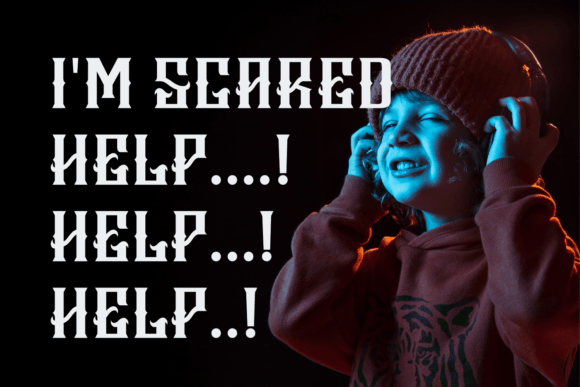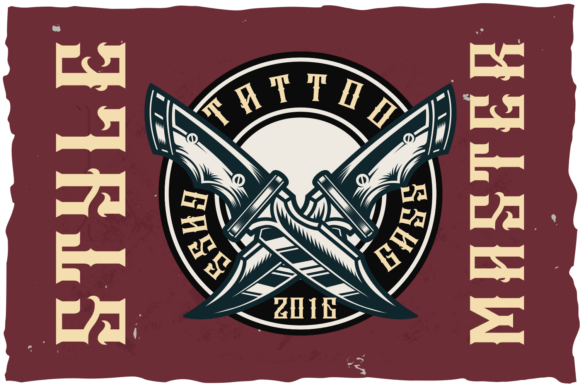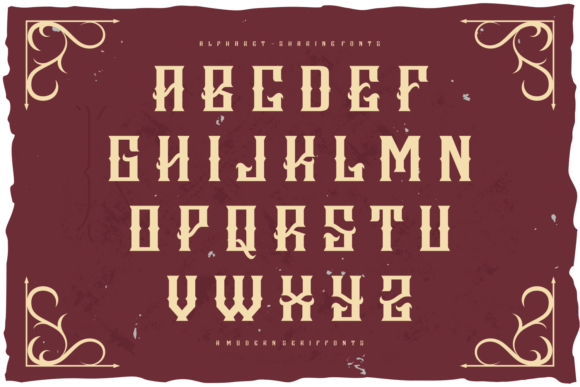
Introduction to Life Brief Font
Life Brief is a bold and edgy blackletter font with a heavy, structured design that carries a mix of gothic tradition and modern street-style aesthetics.
Its sharp serifs, blocky shapes, and distressed detailing make it stand out for posters, album covers, tattoo-inspired branding, vintage labels, and alternative fashion designs The font radiates strength, rebellion, and dramatic flairβ€”perfect for impactful visuals.